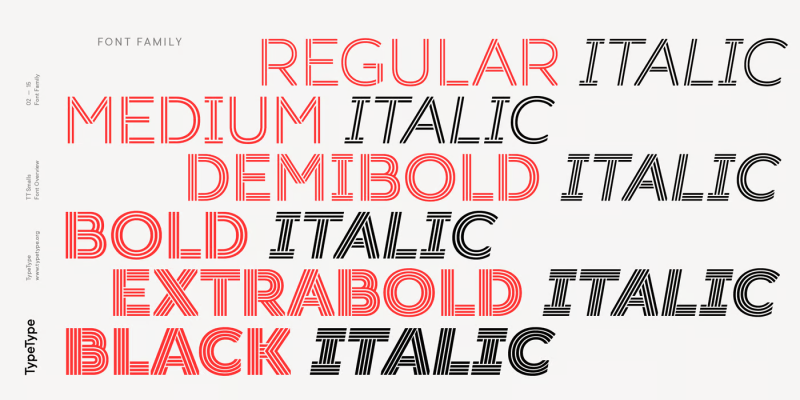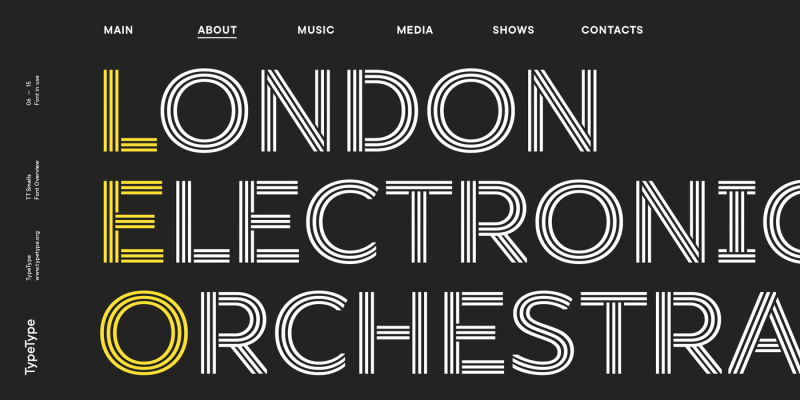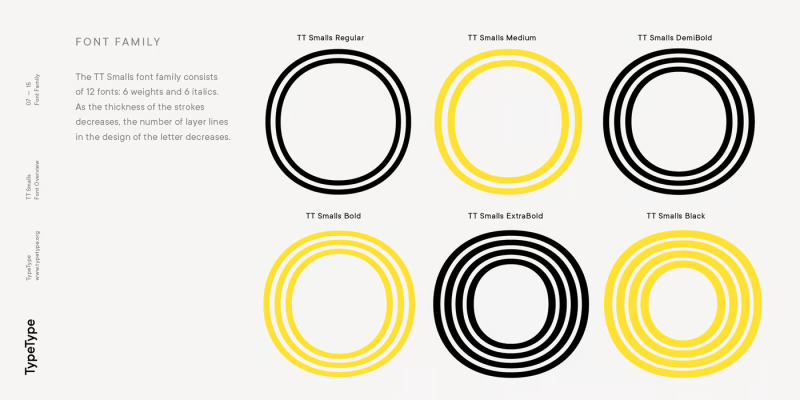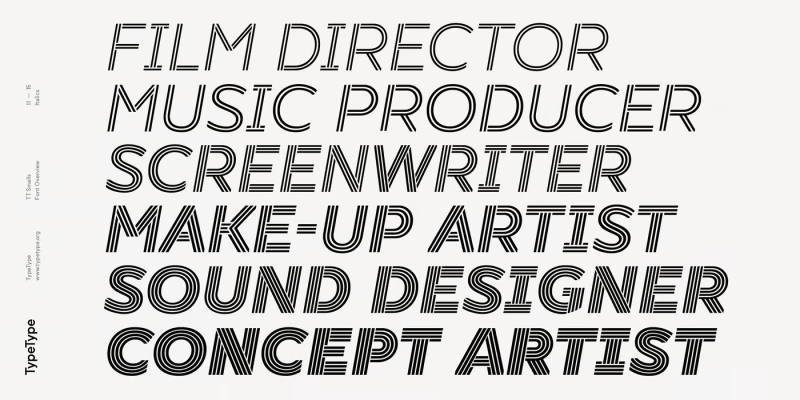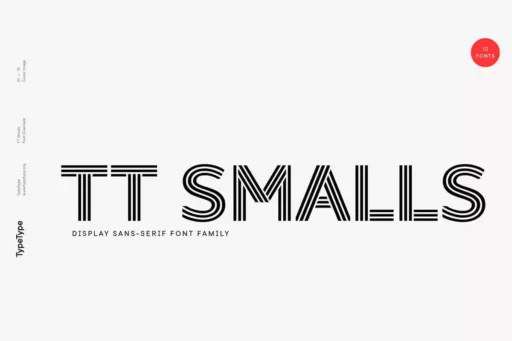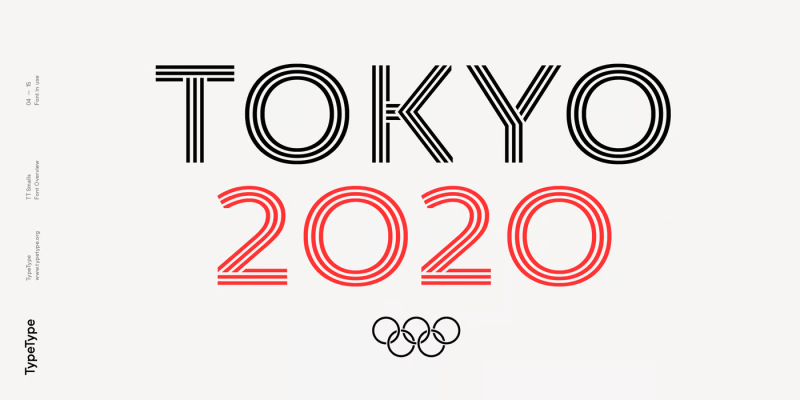
TT Smalls Font
TT Smalls is a highly engaging decorative font by the famous foundry TypeType. This type of font is highly suitable for creating attention grabbing headlines, designing packs, or emphasizing text on a website. Regardless of whether the media you are using is printed or electronic, text in TT Smalls style is guaranteed to generate interest.
In the beginning, TT Smalls was a neutral geometric sans serif with an inline version as an alternative stylistic set. Nevertheless, due to the abundance of various fonts in the TypeType collection of universal fonts, the client’s decision was made to improve its identity. The outcome is an individualistic typeface that reinterprets the original purpose and leads to the enhanced TT Smalls.
The inline version of the font is completely limited to uppercase letters, keeping with the geometric sans serif style. This innovation consists in the fact that depending on the weight, it can add or remove strokes, increasing or decreasing the number of them. This element enhances the aesthetic value as well as the flexibility of this particular product line.
TT Smalls includes 12 versatile styles: six upright and six inclined. It supports 172 glyphs, including basic Latin Latin, Cyrillic and the most frequently used punctuation marks. Additional OpenType feature ‘calt’ (contextual alternates) which is marked by default is also included in this font to provide flexibility and ease of usage.
Clean and fierce, TT Smalls is an ideal supplement to any library of display fonts, which will help to take your projects to the next level.
Where TT Smalls Font works best
TT Smalls Font is built for size: event posters, hero headlines and billboard-style layouts.
High contrast display type like TT Smalls Font reads instantly in thumbnails and motion graphics.